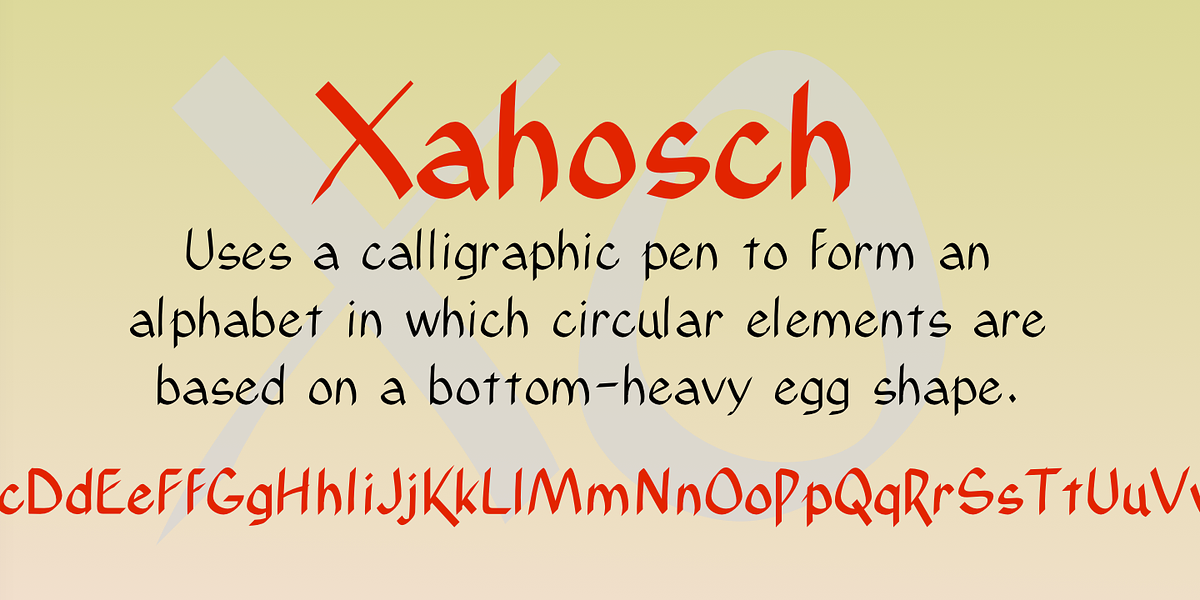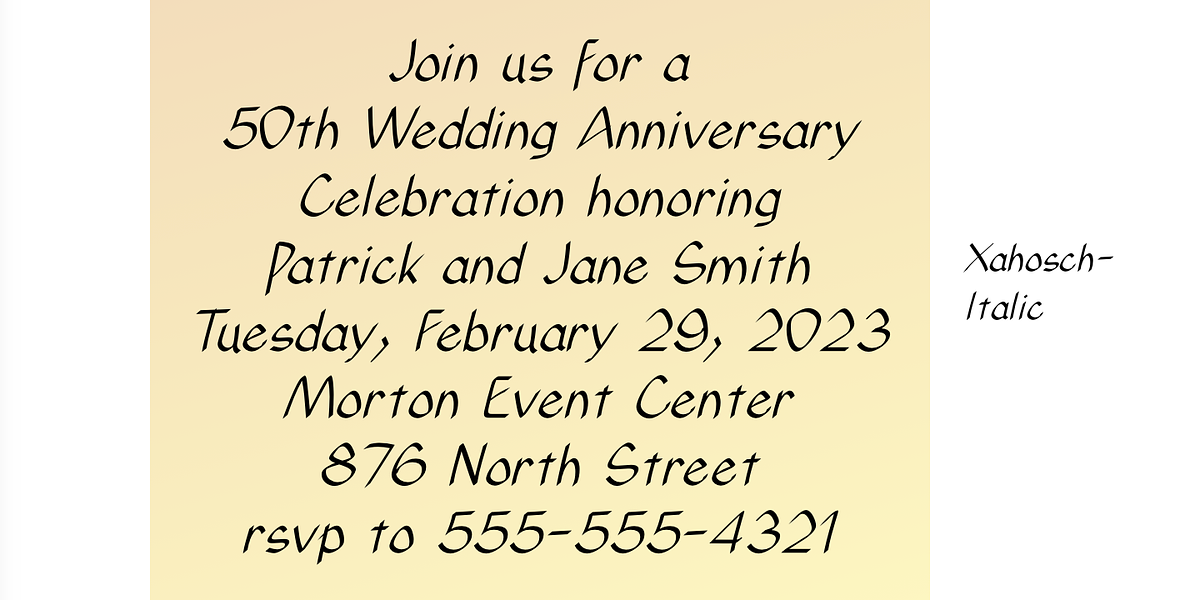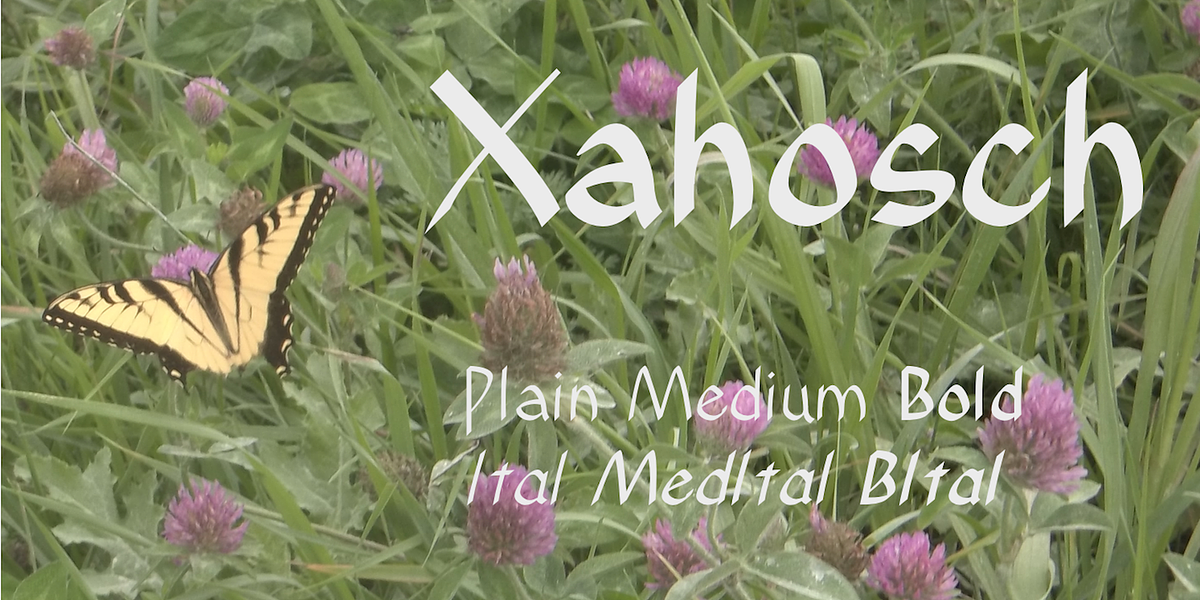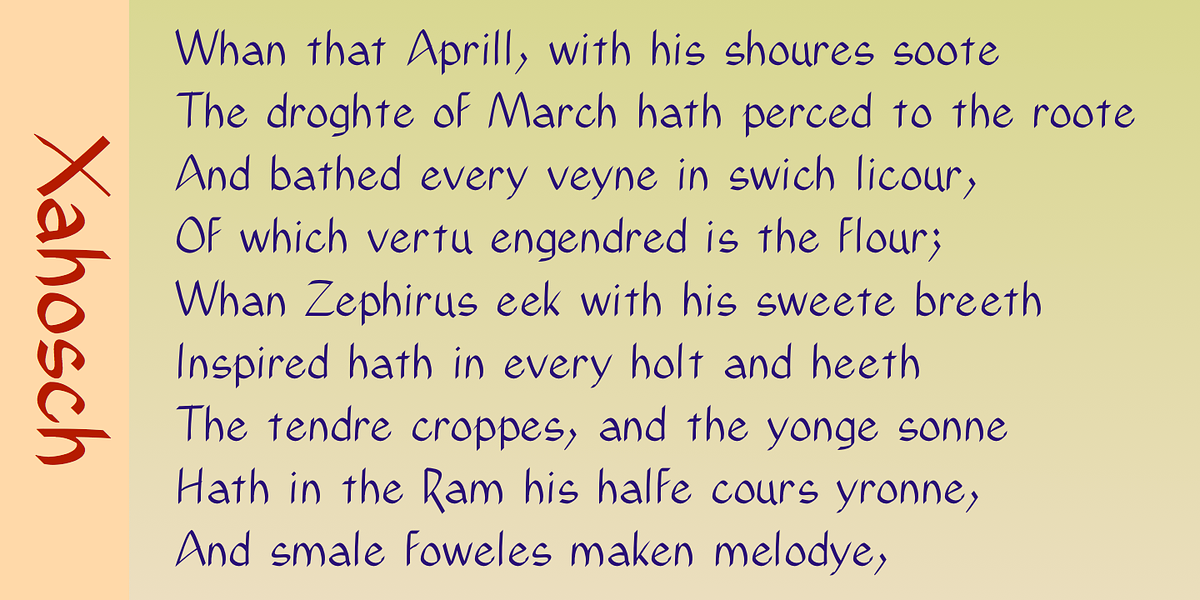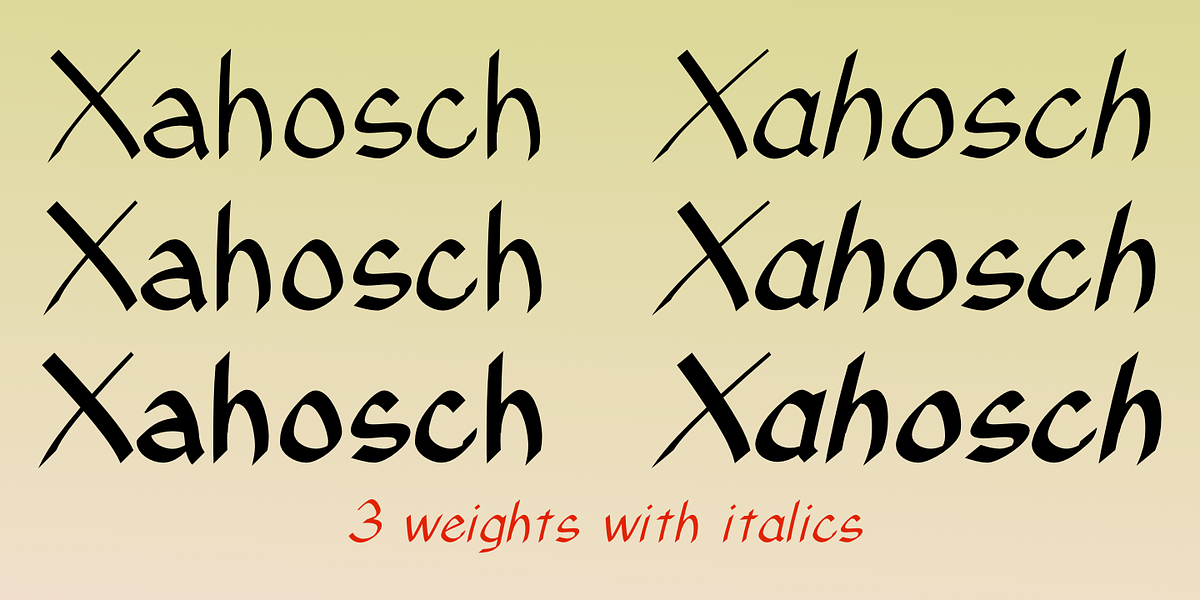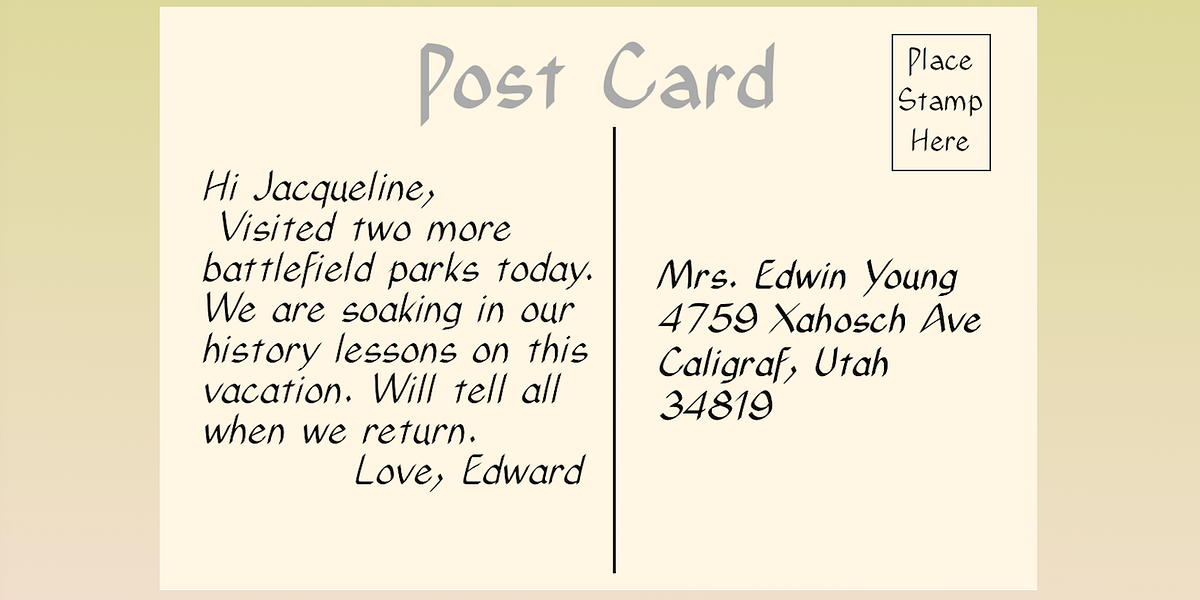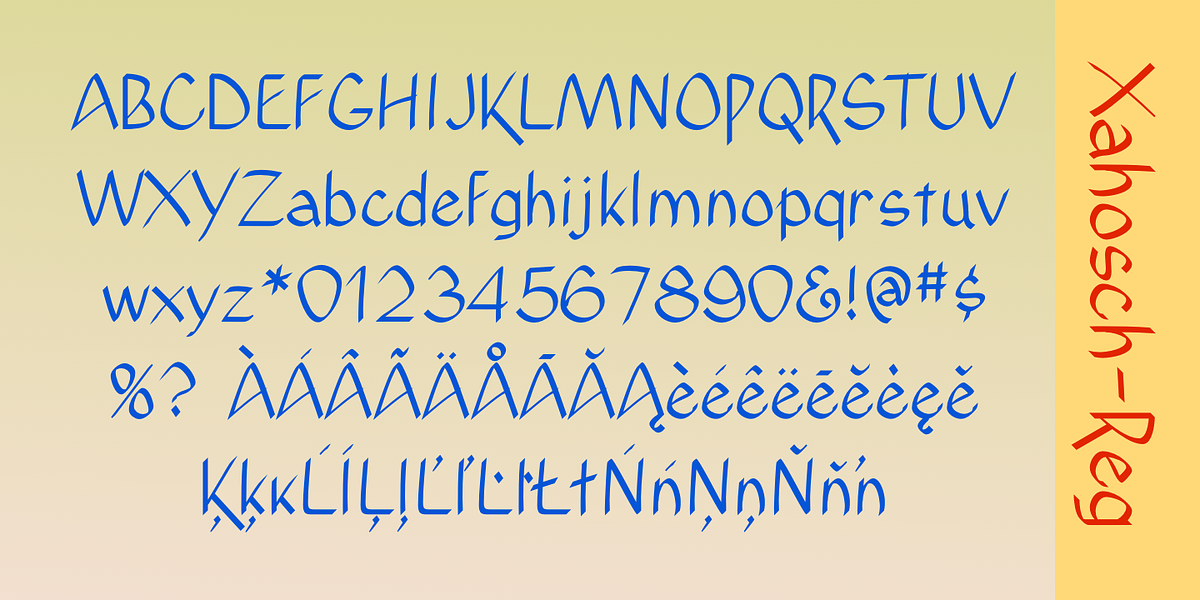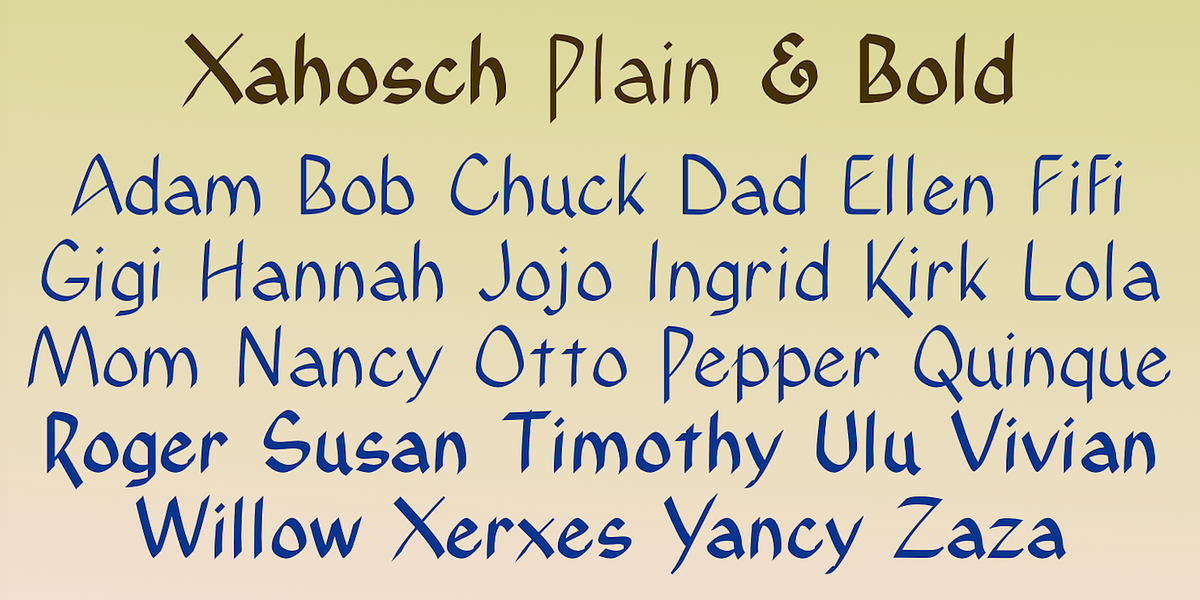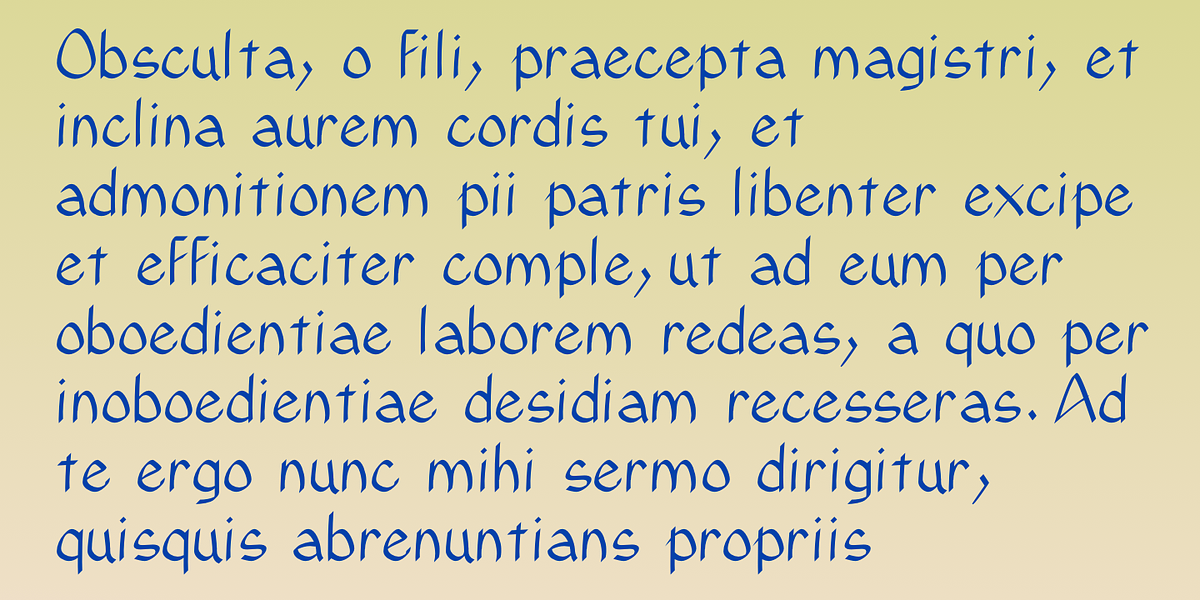
Xahosch
Xahosch is a hand-drawn sans serif font with a distinctive calligraphic style. The circular elements are based on a bottom-heavy egg shape, giving the font a unique and organic feel. It is available in three weights (thin, regular, and bold), each with an italic counterpart. This makes Xahosch suitable for a variety of display purposes, such as branding and headlines.